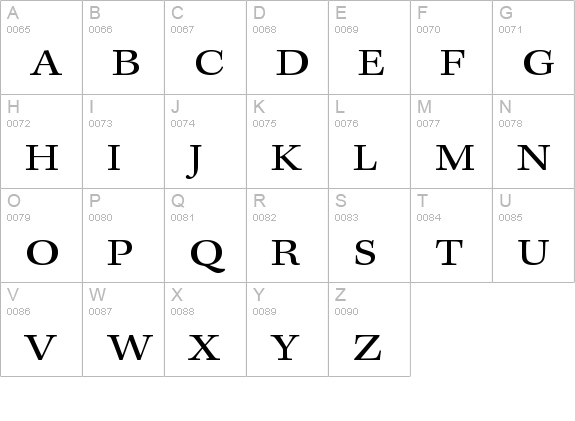
Kepler Std Extended Caption Font Details
Kepler Std Extended Caption is a distinctive, extended-width variant in the Kepler typeface family \xE2\x80\x94 well suited to design and typography projects.
Introducing Kepler Std Extended Caption, the perfect font for all your captioning needs. With its clean and modern design, this font is sure to enhance any project, whether it be a magazine, website, or advertisement. What sets Kepler Std Extended Caption apart is its versatility and readability. Its extended character set allows for a wide range of typography options, while its carefully crafted curves and balanced proportions ensure legibility even at small sizes. But perhaps the best part about Kepler Std Extended Caption is that it is freely available to download at FontsMarket.com. Yes, you read that right – this high-quality font can be yours for free! Now you can elevate your designs without breaking the bank. So why wait? Take advantage of this incredible offer and download Kepler Std Extended Caption today. Your projects will thank you for it.